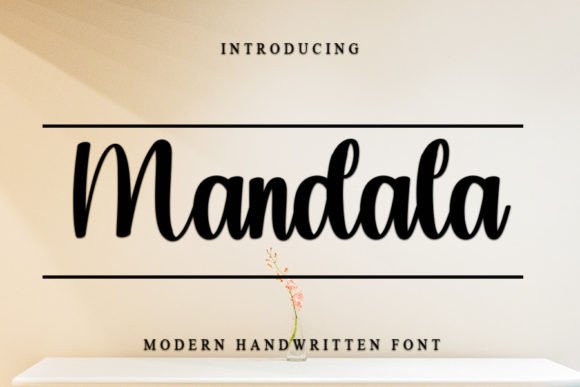
About Mandala Font
**Mandala** is a neat and beautifully crafted handwritten font characterized by an elegant touch. Its distinct and timeless style makes it a perfect choice for a wide range of creative projects. Whether you’re designing logos, branding materials, stationery, posters, or any other visual content, **Mandala** can elevate your designs with its unique charm.
The font’s elegant handwriting adds a touch of sophistication to your projects while maintaining a clean and legible appearance. This balance between style and readability makes **Mandala** suitable for both print and digital applications.
One of **Mandala**’s standout features is its ability to create visually striking and memorable designs. Its distinct style sets your content apart and leaves a lasting impression on your audience, making it a valuable asset for various creative endeavors.
In conclusion, **Mandala** is a neatly designed handwritten font with a distinct and timeless style that can enhance your favorite projects. Whether you’re working on branding, marketing materials, or other creative design endeavors, this font’s elegance and charm can help you create spectacular and memorable designs. With **Mandala** as part of your creative toolkit, your possibilities for crafting visually appealing and impactful content are limitless.